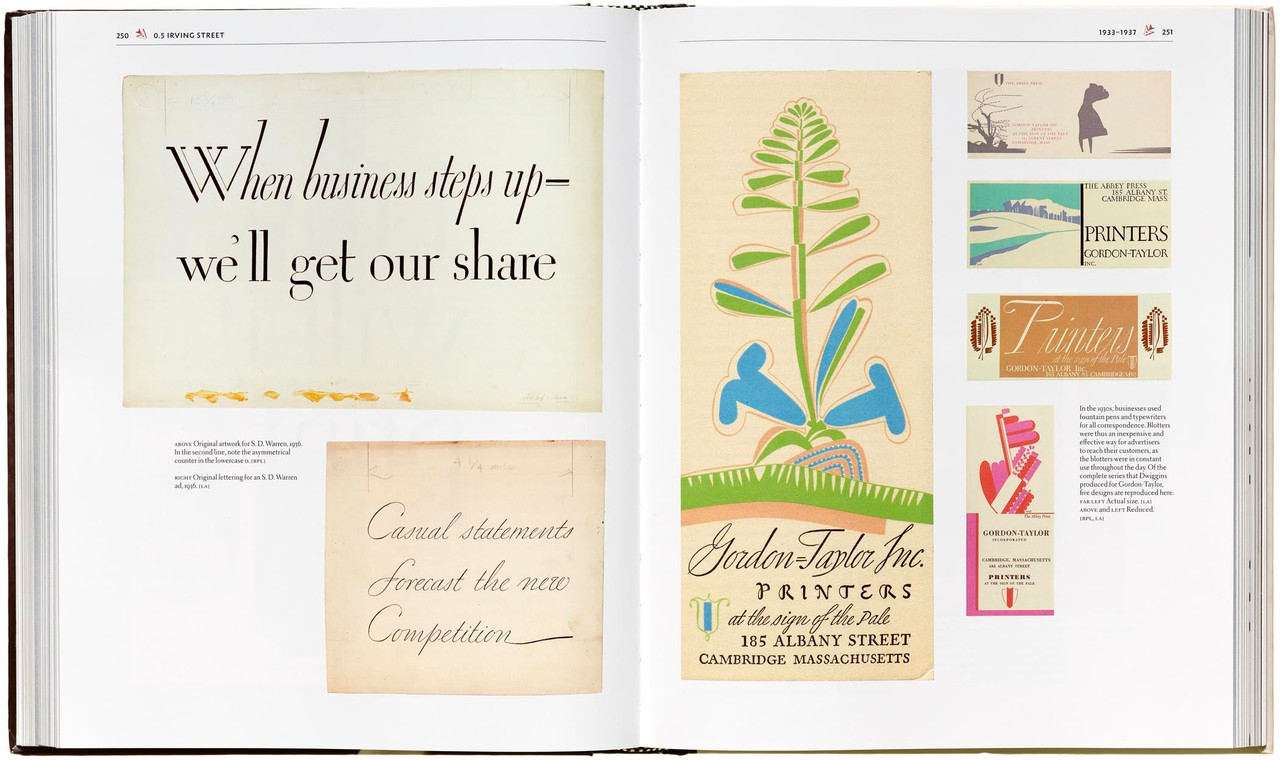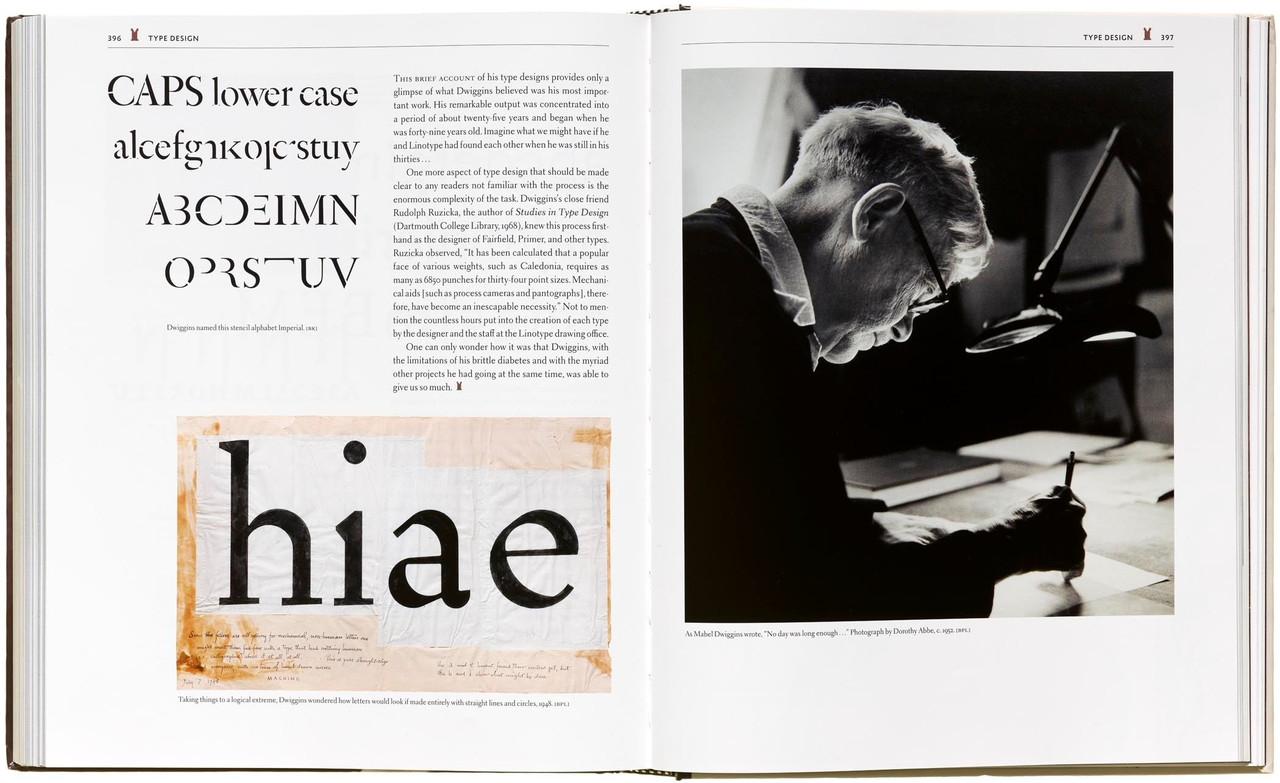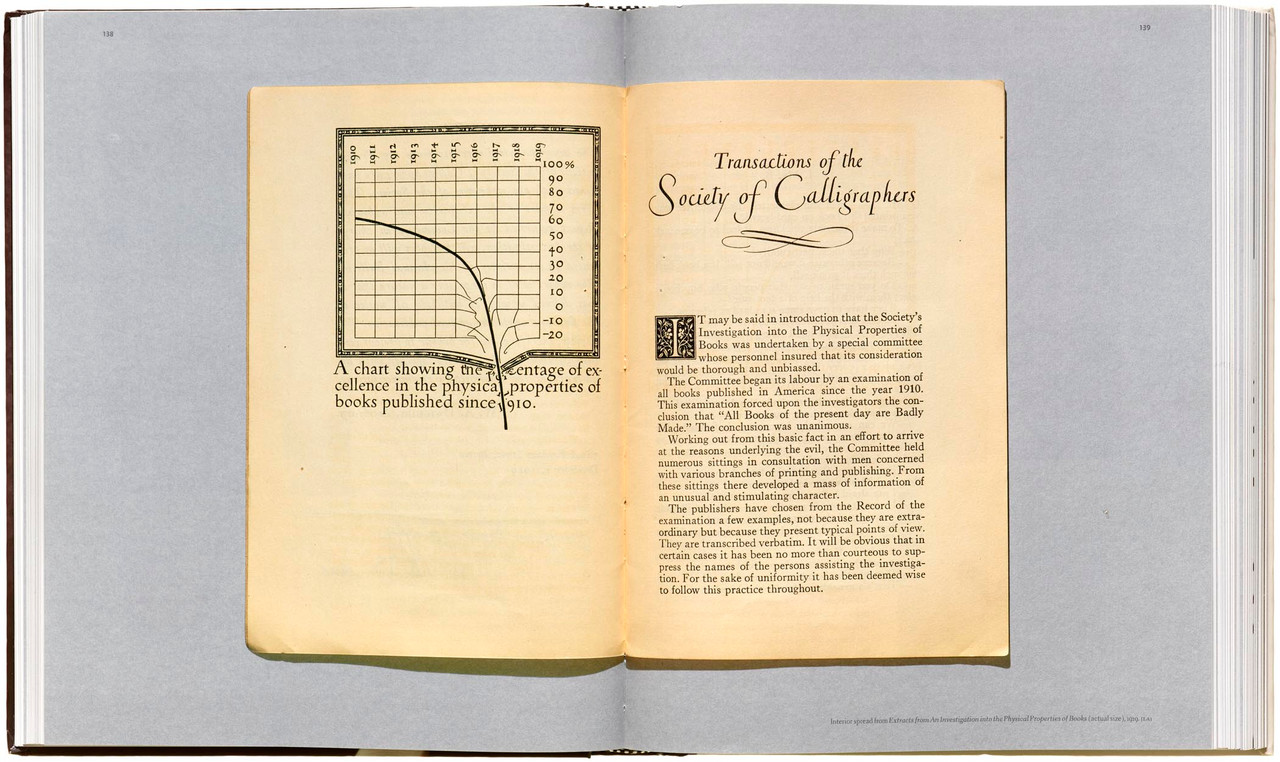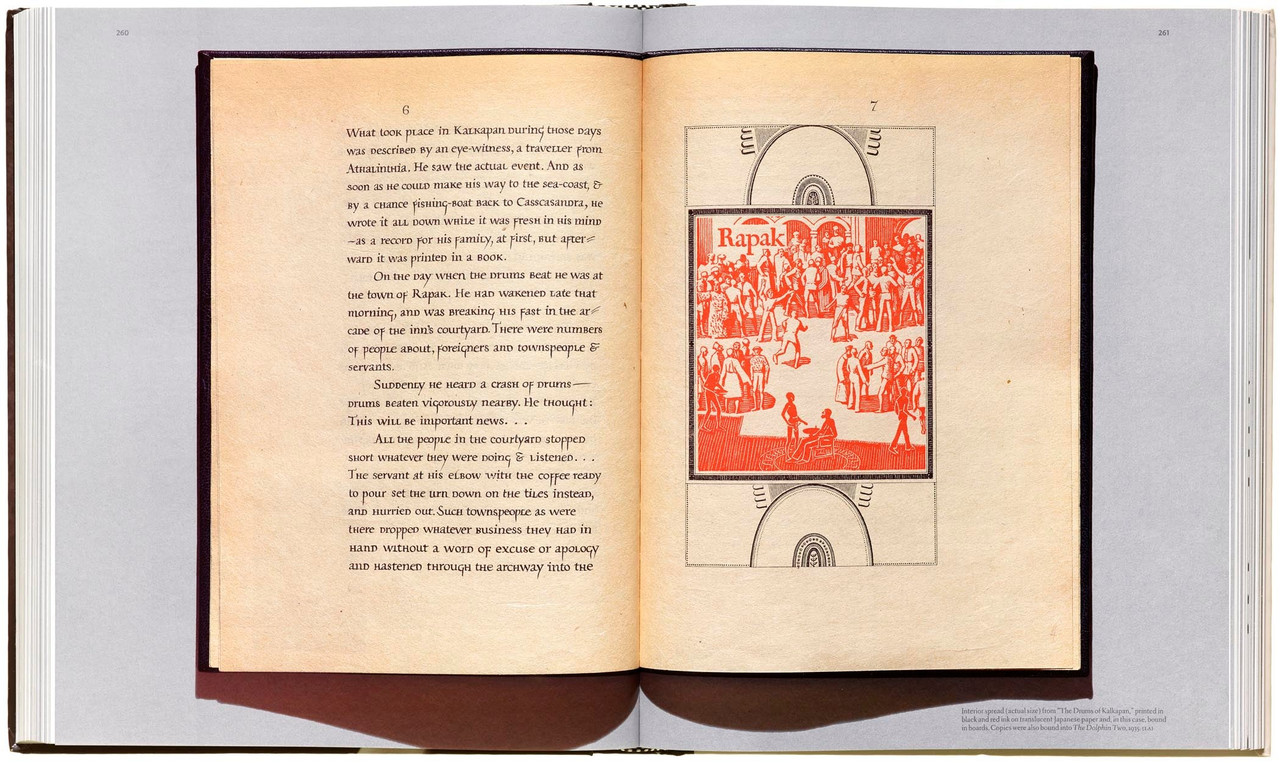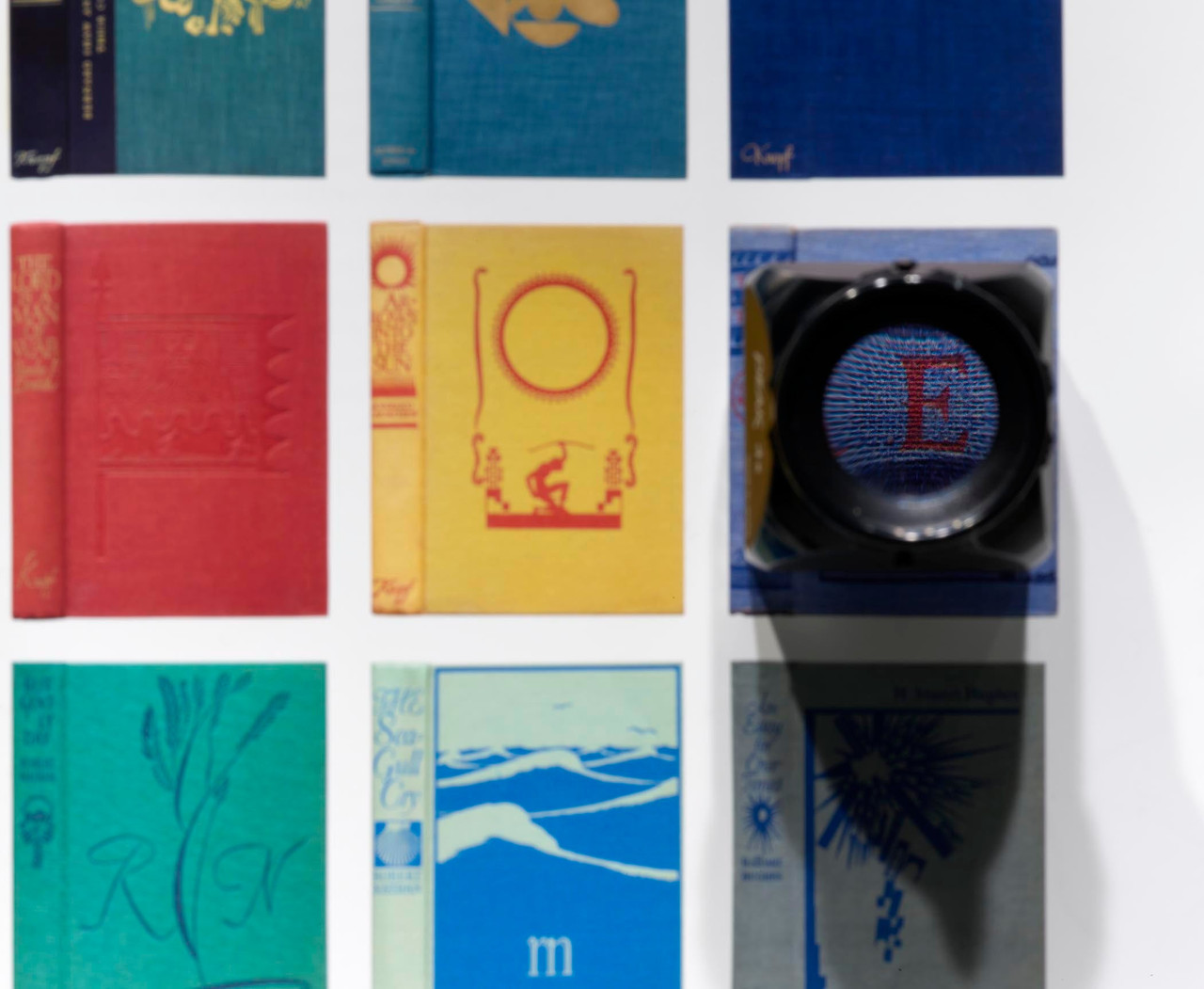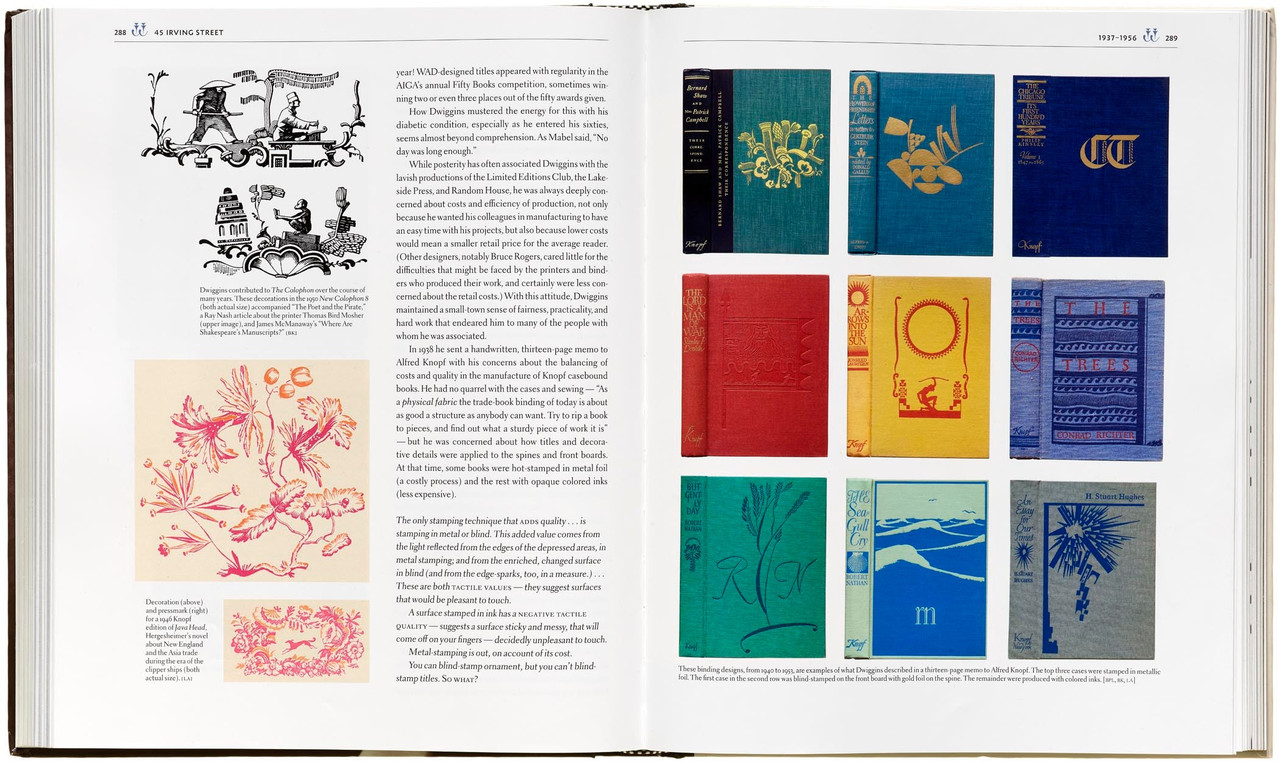
Often credited with inventing the term “graphic design,” W. A. Dwiggins was a quintessential maker — fabricating his own tools, inventing techniques, and experimenting with design in areas as wide-ranging as modular ornament, stamps, currency, books, kites, marionettes, and theatrical sets and lighting. More than any of his contemporaries, he united the full range of applied arts into a single profession — designer. Despite this, a thorough study of Dwiggins has never been published. Until now.
W. A. Dwiggins: A Life in Design offers an engaging and inspiring overview of the designer’s wide-ranging creative output and lasting impact on the graphic arts. Bruce Kennett’s careful research, warm prose, and inclusion of numerous personal accounts from Dwiggins’s friends and contemporaries portray not only a brilliant designer, but a truly likable character.
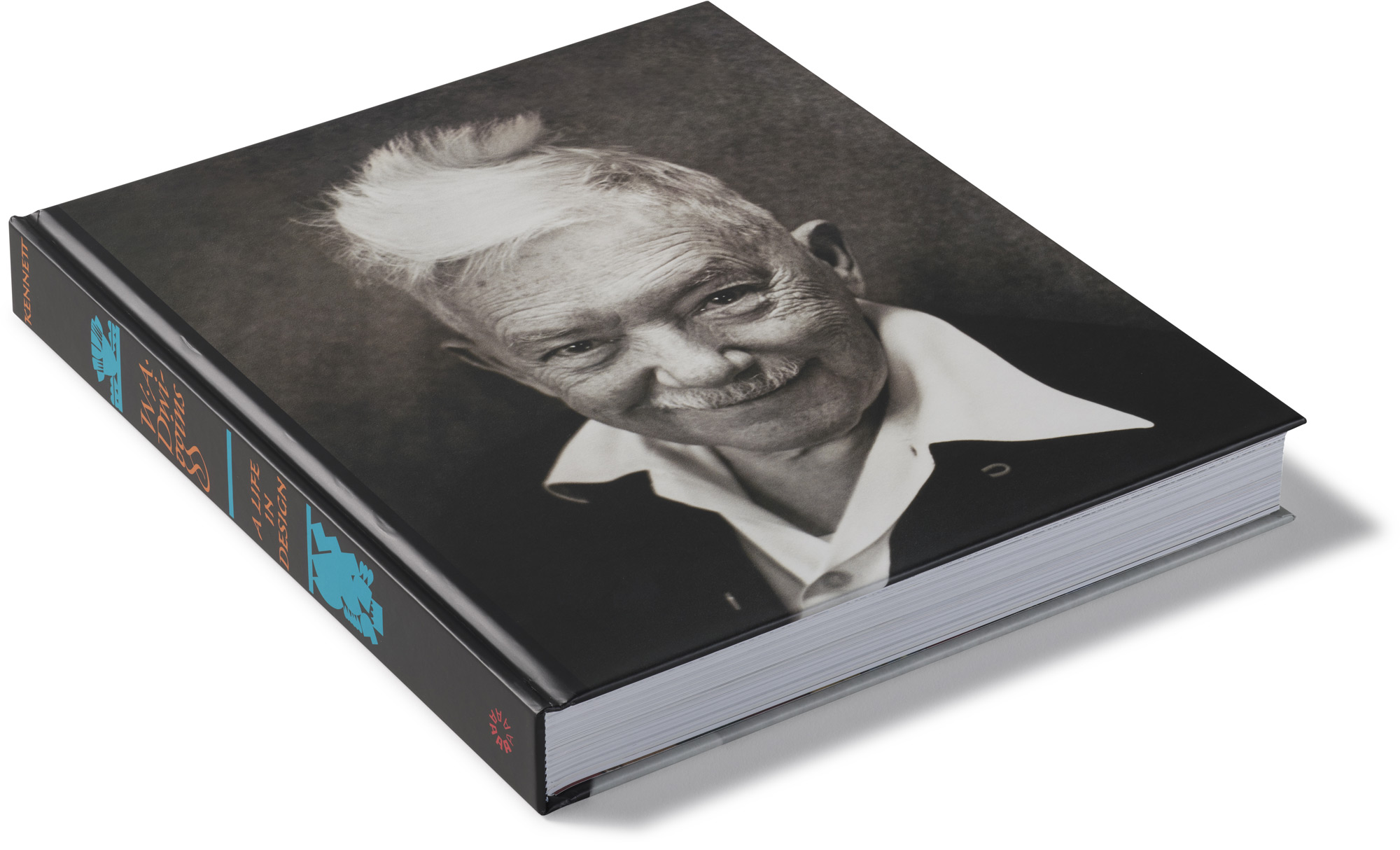
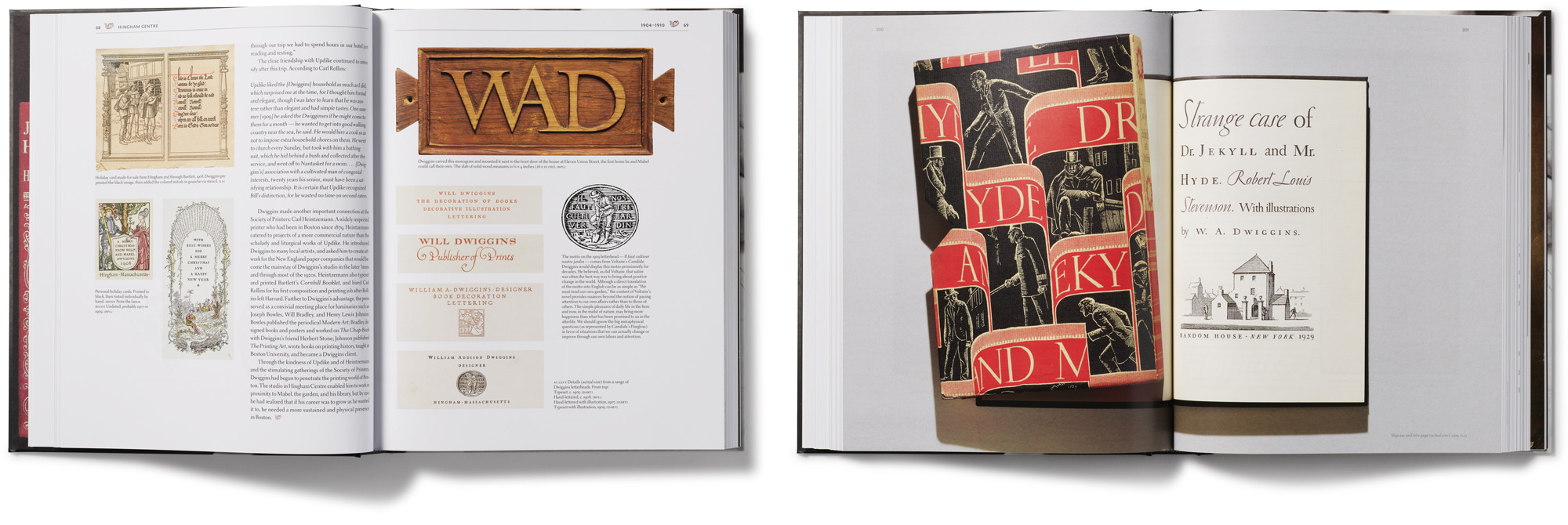
W. A. Dwiggins: A Life in Design offers an engaging and inspiring overview of the designer’s wide-ranging creative output and lasting impact on the graphic arts. Bruce Kennett’s careful research, warm prose, and inclusion of numerous personal accounts from Dwiggins’s friends and contemporaries portray not only a brilliant designer, but a truly likable character.
Written and designed by Bruce Kennett, with a foreword by Steven Heller, this is the first biography of one of the most innovative designers of the 20th century. Often credited with inventing the term “graphic design,” W. A. Dwiggins was a quintessential maker — fabricating his own tools, inventing techniques, and experimenting with design in areas as wide-ranging as modular ornament, stamps, currency, books, kites, marionettes, and theatrical sets and lighting. More than any of his contemporaries, he united the full range of applied arts into a single profession — designer. Despite this, a thorough study of Dwiggins has never been published. Until now.
Bruce Kennett (author/designer) is a designer of books and exhibits, photographer, writer, and teacher. He studied calligraphy and book design with Austrian artist Friedrich Neugebauer, and later translated Neugebauer’s book The Mystic Art of Written Forms. Kennett also served as manager and book designer at Maine’s Anthoensen Press. His client list ranges from the Folger Shakespeare Library and the Grolier Club to L.L.Bean and the Mount Washington Observatory.
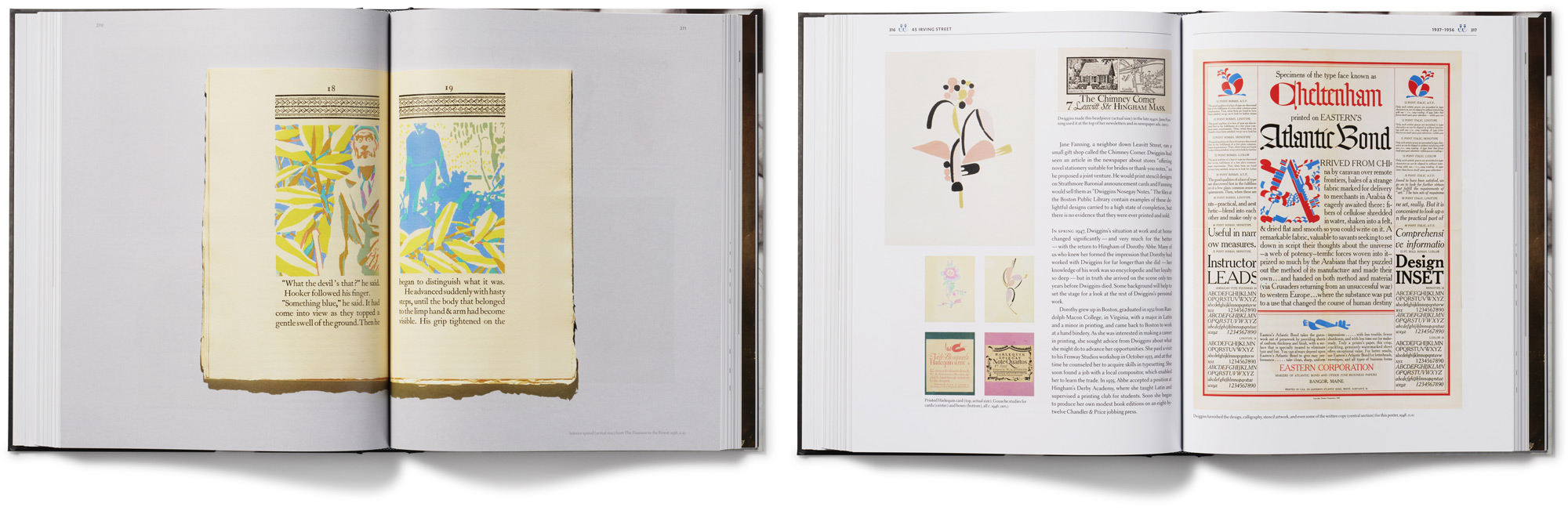
Praise for W. A. Dwiggins: A Life in Design
“A book to spend a year with. This book is many things, but most of all it is proof positive that if there is any doubt about the origin theory of graphic design, Dwiggins did more to promote, diversify, and integrate the graphic, typographic, and printing-arts disciplines than anyone of his generation.”
— Steven Heller, author, art director, and design historian
“One of the many strengths of this book is that it deals both with Dwiggins’s familiar typefaces — Metro, Electra, Caledonia — and with his less well-known types, illustrated with drawings or trial cuttings. The result is the most complete conspectus we have of an extraordinary variety of type designs, and an appreciation of Dwiggins’s virtuosity in full flower.”
— Matthew Carter, type designer
“To call W. A. Dwiggins a consummate American type designer, calligrapher, book designer, and illustrator is just to get started. Gifted with a superb literary sensibility and a flair for the dramatic, he wrote plays, stories, and crafted marionettes in a theater of his own devising…. Bruce Kennett has brought Dwiggins to life in this impeccably written and designed biography.”
— Carl Rollyson, biographer of Susan Sontag, Thurgood Marshall, and Rebecca West, among others
“W. A. Dwiggins: A Life in Design reminds us that living is an art. Bruce Kennett has written and designed a highly satisfying account of the life of the graphic artist and designer that fuses the life and work in a way that Dwiggins himself would have appreciated.”
— Stephen Enniss, Director, Harry Ransom Center, University of Texas, Austin